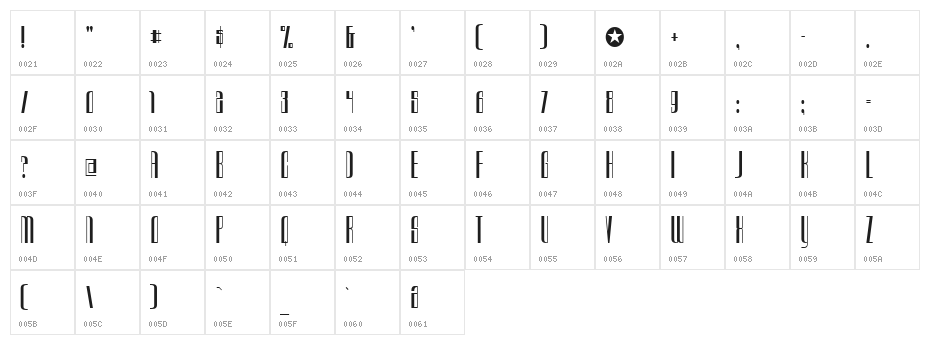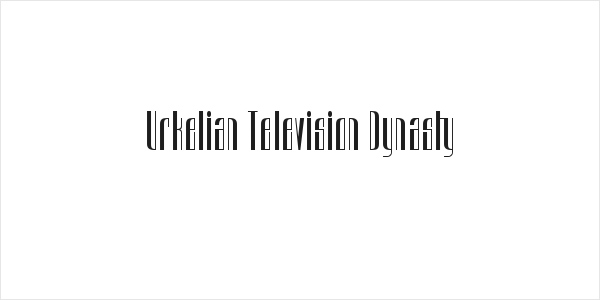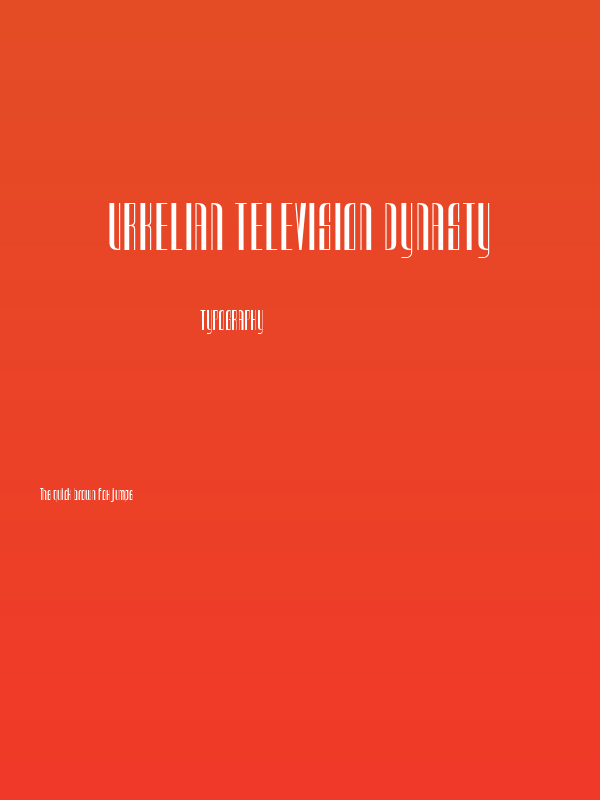
Urkelian Television Dynasty Font
Urkelian Television Dynasty Description
This font features a tall, narrow design with a distinctly modern and futuristic aesthetic. The characters are elongated with a condensed width, giving them a sleek and sophisticated appearance. The uppercase letters are particularly striking, with sharp angles and clean lines that create a sense of elegance and precision. The lowercase letters maintain the same narrow structure, ensuring consistency throughout the typeface. The numerals are similarly styled, with a uniform height that aligns perfectly with the uppercase letters. Special characters, including punctuation and symbols, are designed to complement the overall style, featuring the same elongated form and sharp edges. This font is ideal for projects that require a modern, stylish look with a touch of sophistication.